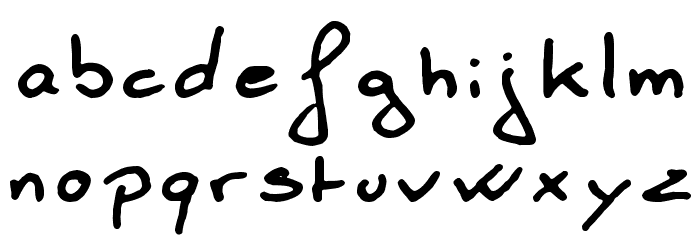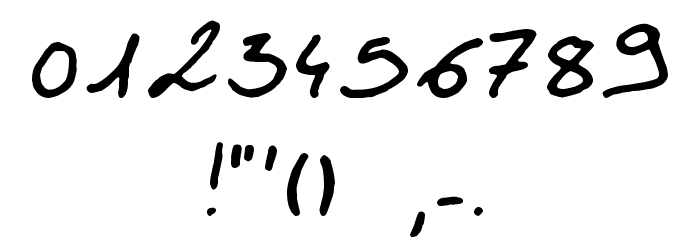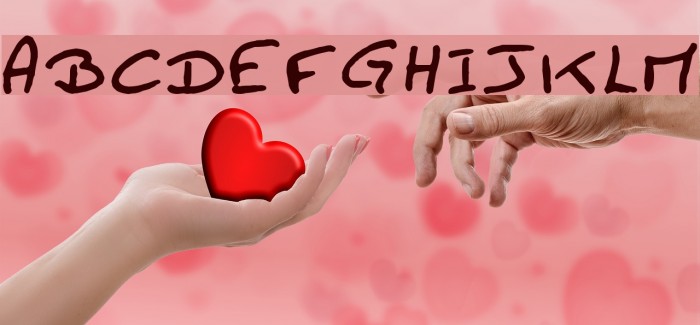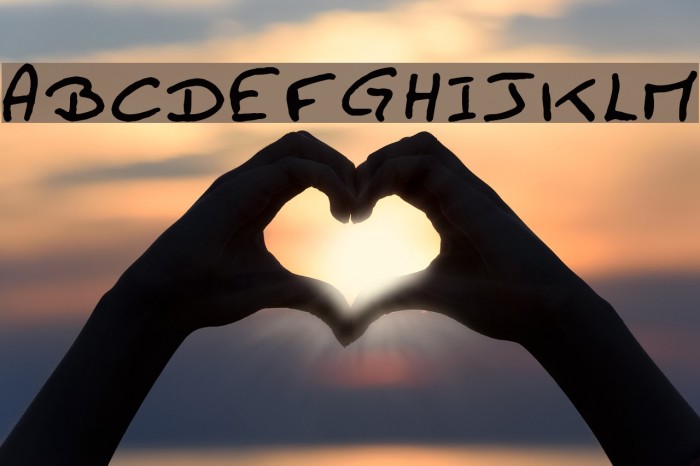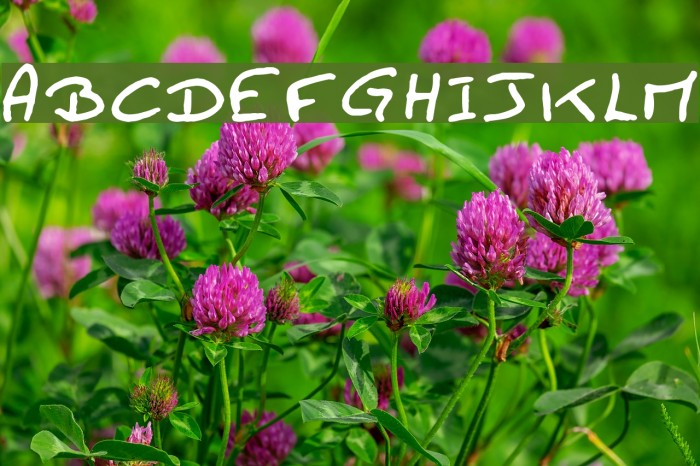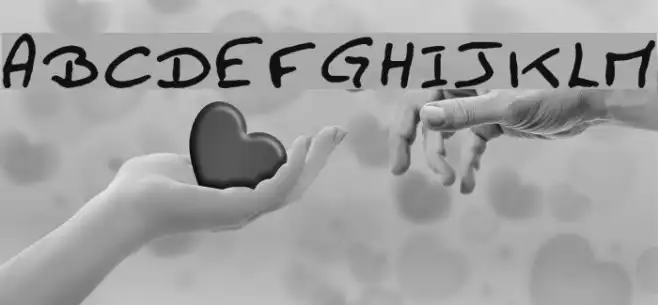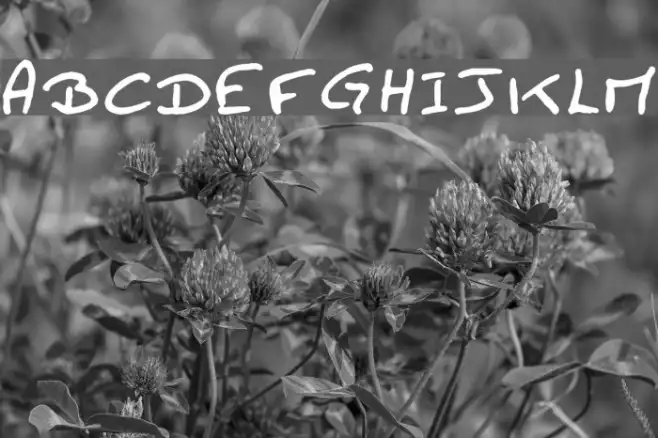
Boluge Font
This font features a playful and informal handwritten style, characterized by its irregular strokes and casual appearance. The letters have a slightly uneven baseline, adding to the whimsical and approachable feel. The uppercase characters are bold and prominent, while the lowercase letters maintain a consistent flow with rounded edges. Numbers and special characters follow the same informal style, making them blend seamlessly with the alphabet. The overall design is reminiscent of a personal note or a casual invitation, exuding warmth and friendliness.
A playful, informal handwritten font with irregular strokes and a casual vibe.
- Proposed Projects: Ideal for greeting cards, casual invitations, children's books, and personal notes.
- Overall Style: Casual
- Use Case: Headlines, Informal text, Personal notes